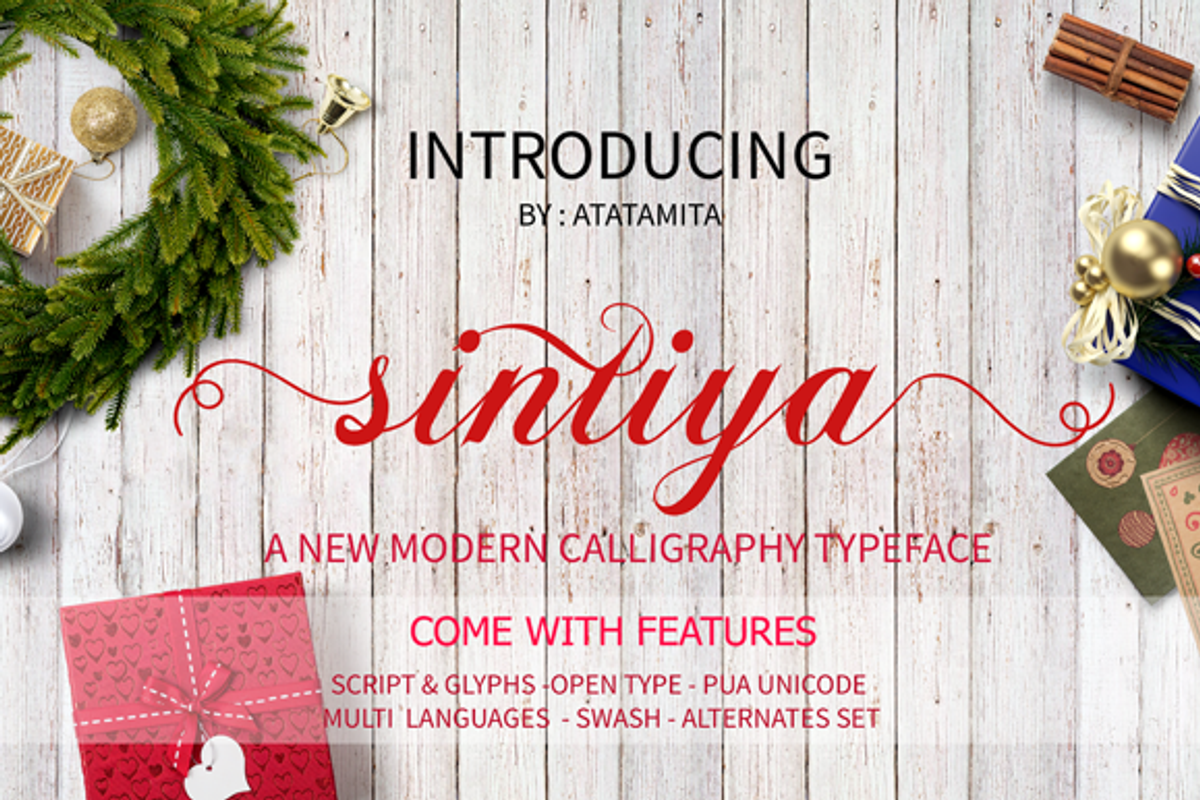
Sintiya Font Free Download is an elegant and stylish script typeface with a modern calligraphic feel. Featuring smooth, flowing strokes and beautiful curves, this font is perfect for creating sophisticated and artistic designs. It works wonderfully for wedding invitations, logos, branding, social media graphics, and any project that requires a handwritten, personal touch.
Sintiya Font Free Download brings a refined yet casual charm to your typography, making it ideal for both high-end designs and creative personal projects. Whether you’re designing for a luxury brand, a boutique shop, or a personal event, this font adds elegance and character.